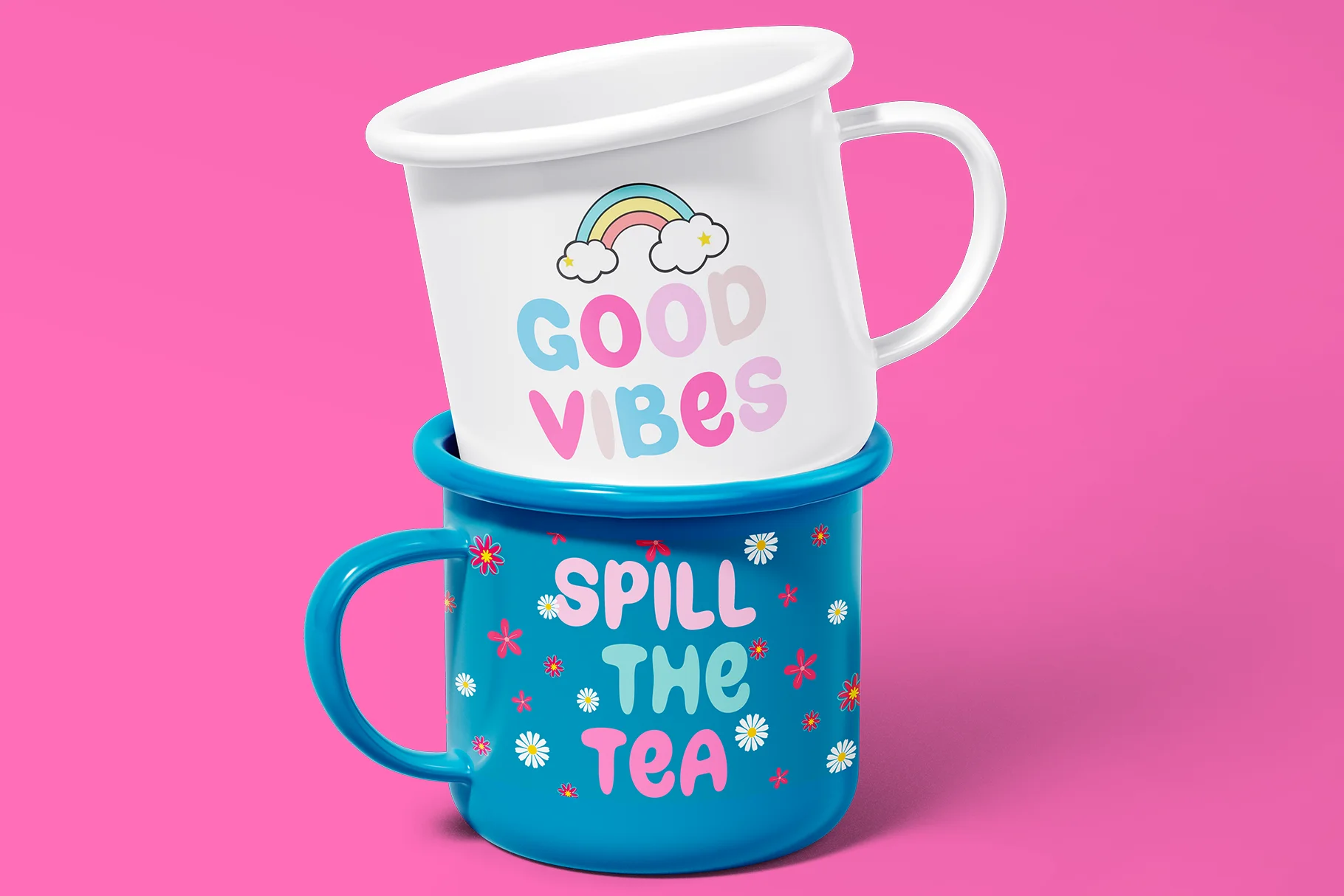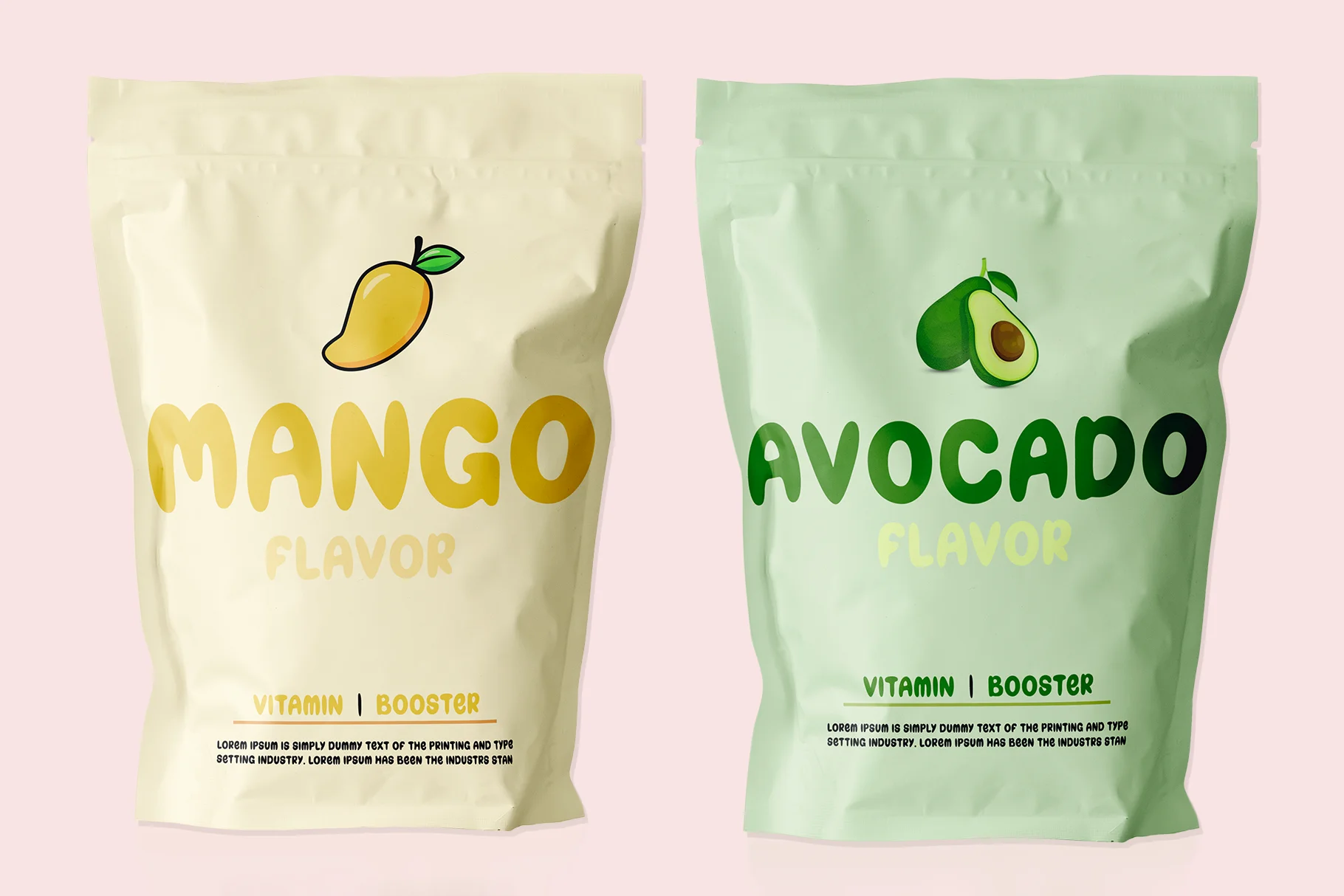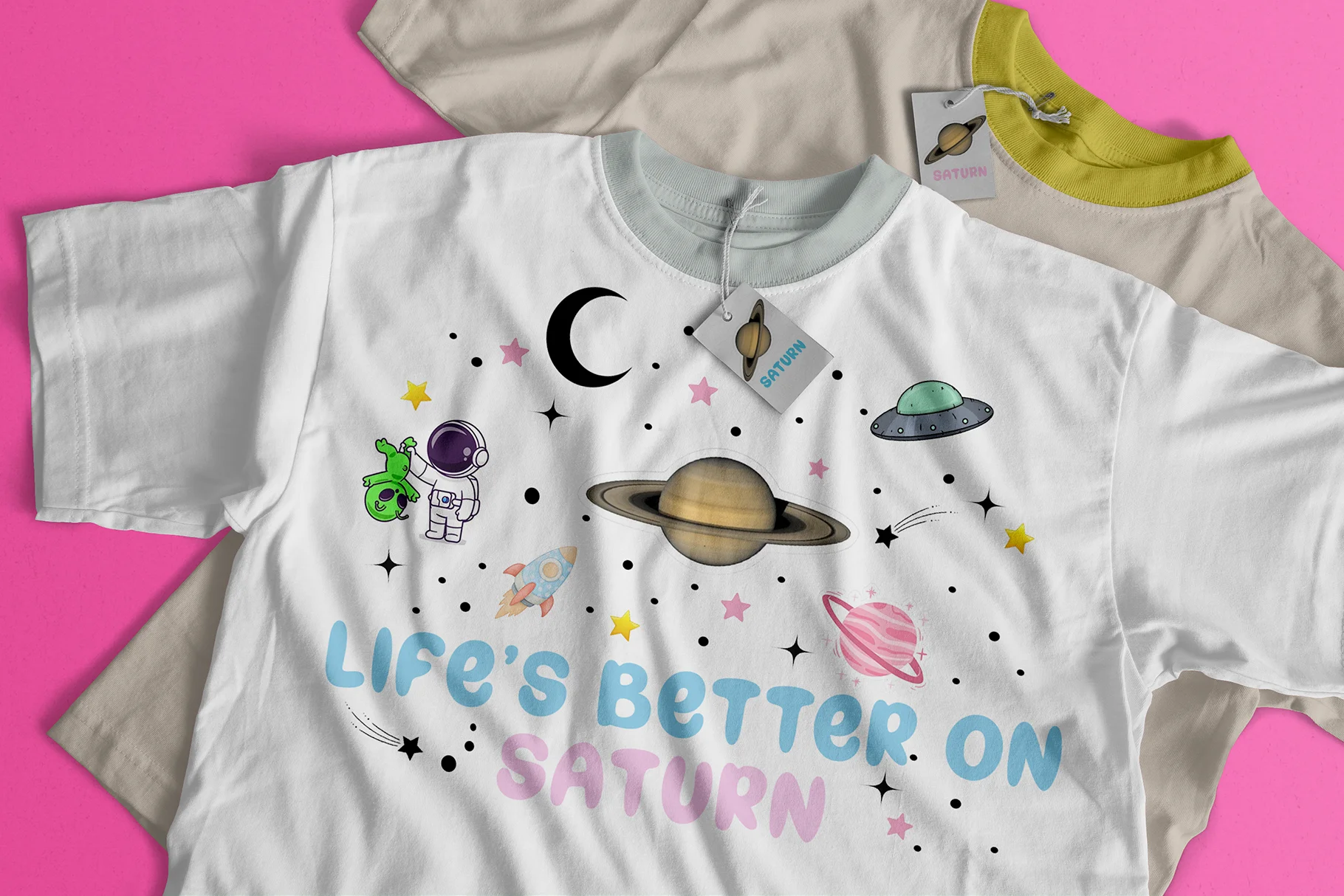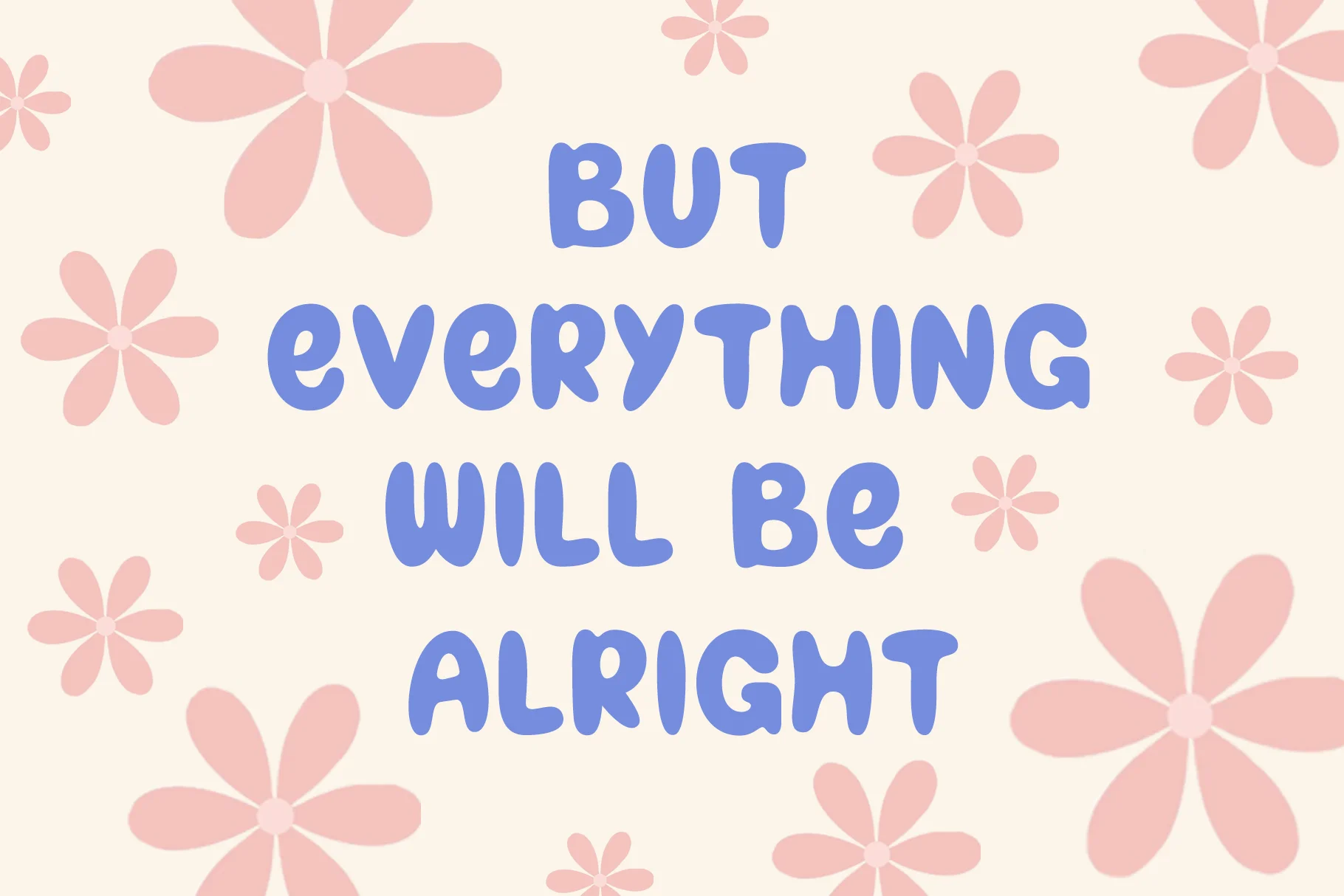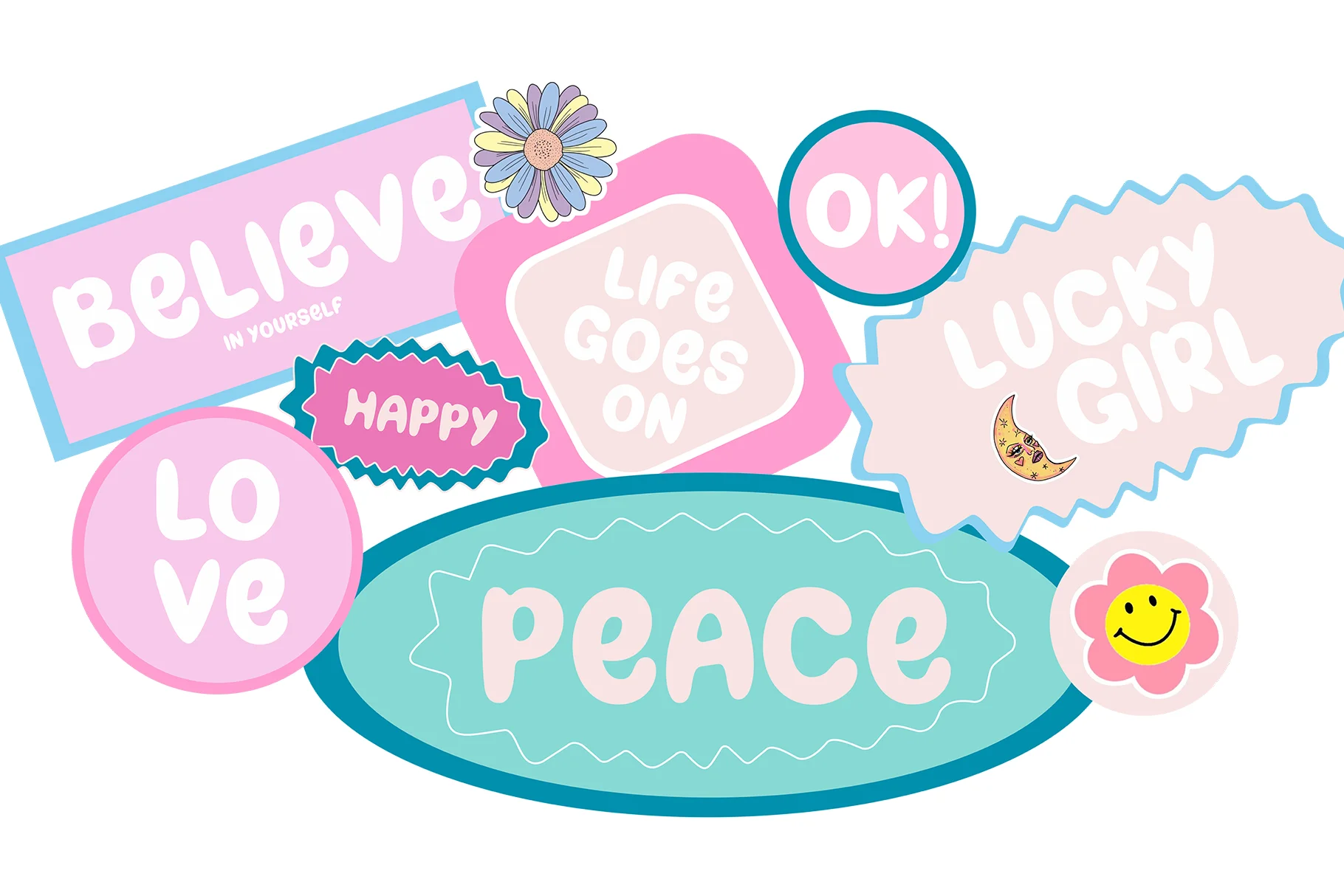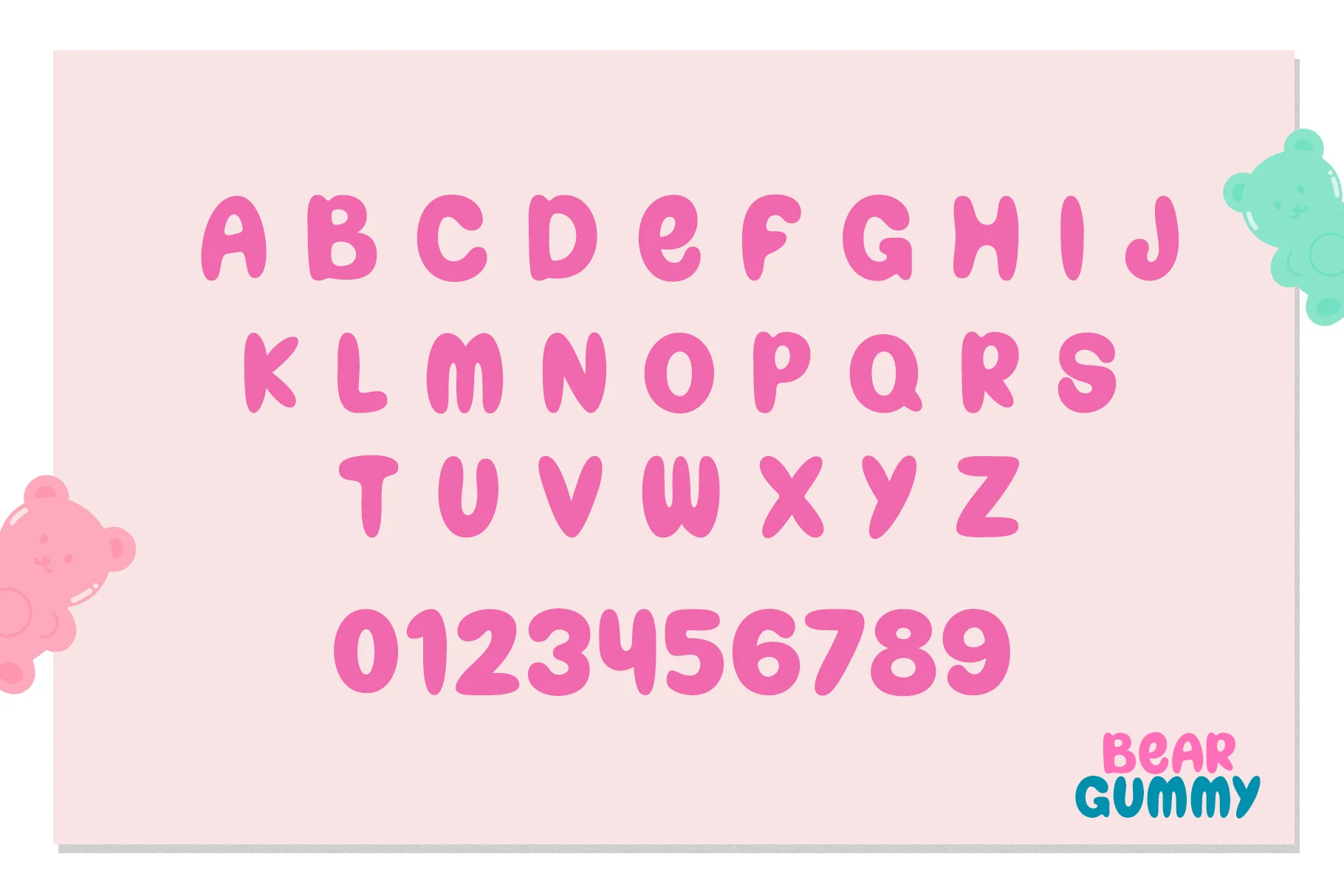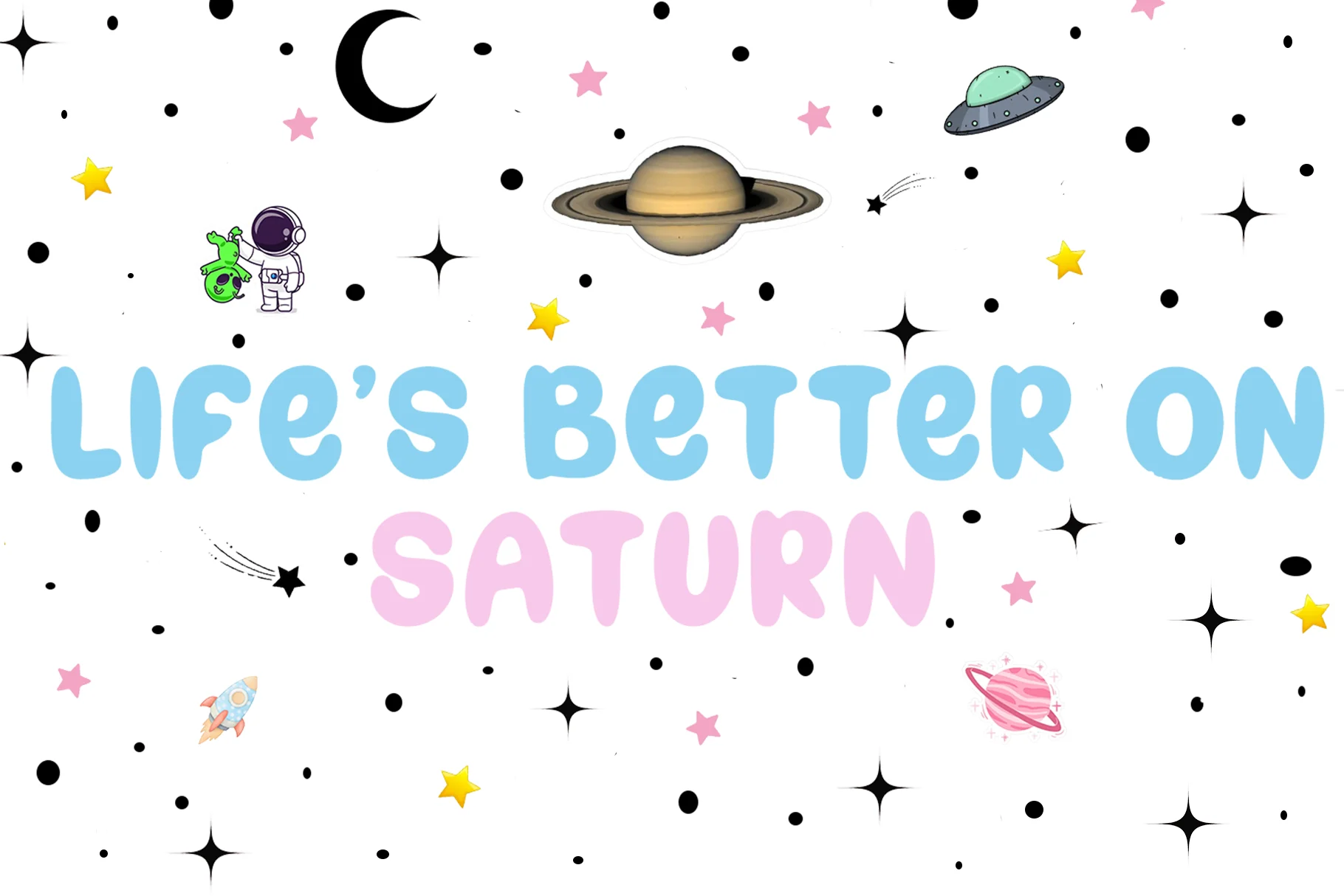
Bear Gummy
This is a fluffy display font with a playful, cute, and cheerful style. The letterforms are round, plump, and soft, resembling balloons or marshmallows, giving a friendly and playful feel. Each character has rounded edges without sharp corners, creating a warm and approachable look.
The font's characters feel casual and fun, with large letter proportions and comfortable spacing, making it highly legible despite its decorative appearance. The cute feel is enhanced by the slightly loose letterforms, giving it a playful, modern handwriting feel.
This font is perfect for:
- Children's and educational designs
- Branding for snack, candy, or toy products
- Posters, banners, and creative titles
- Playful social media content
- Kawaii-themed illustrations and designs